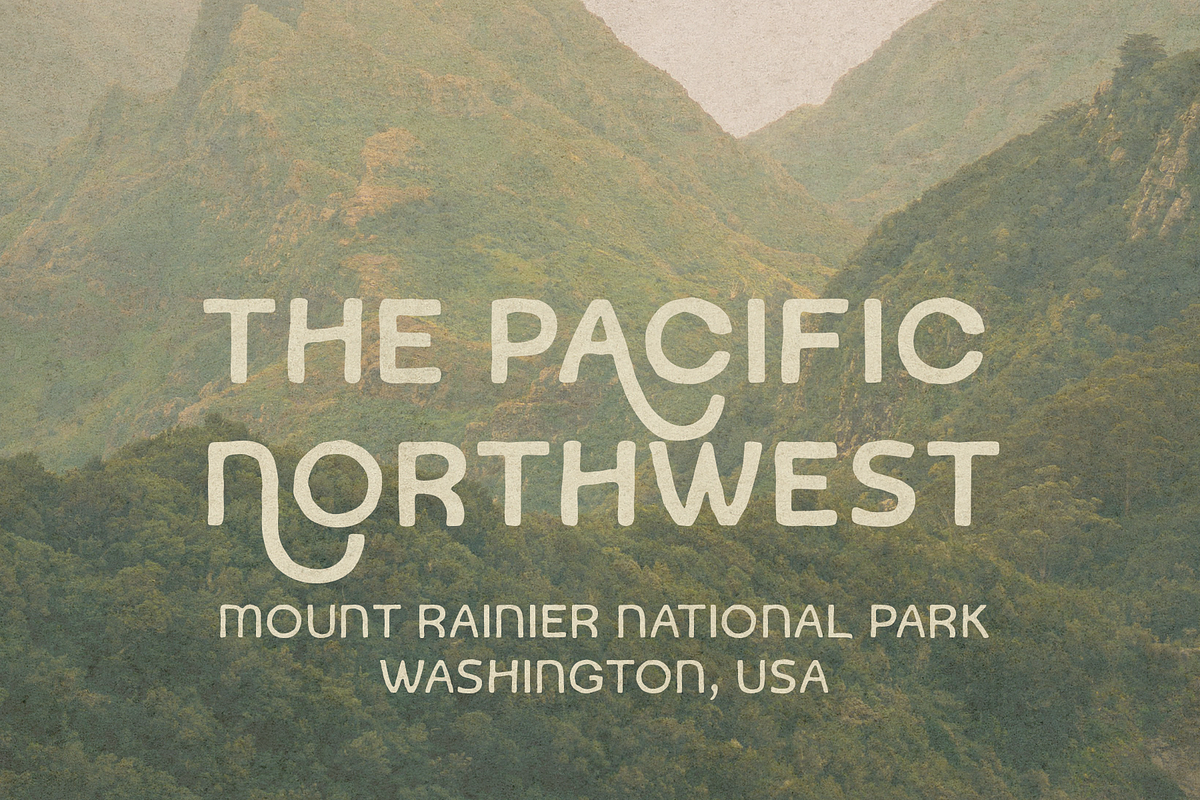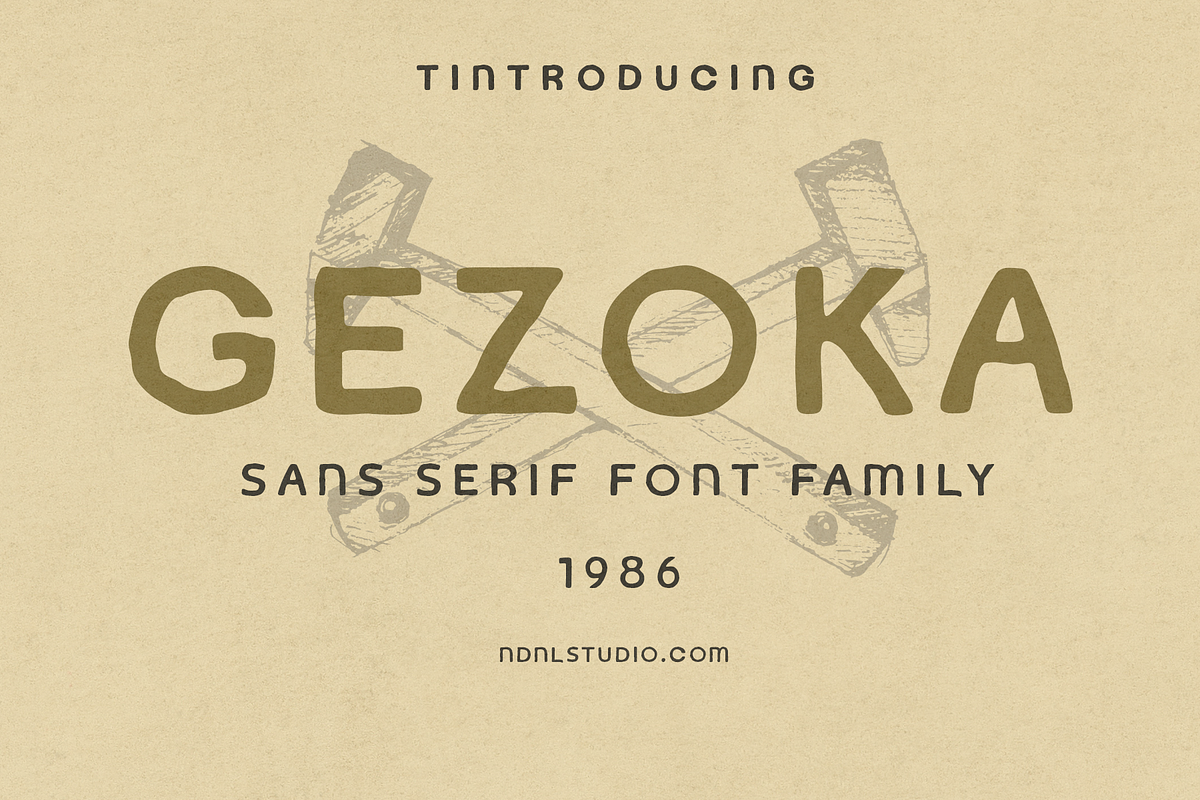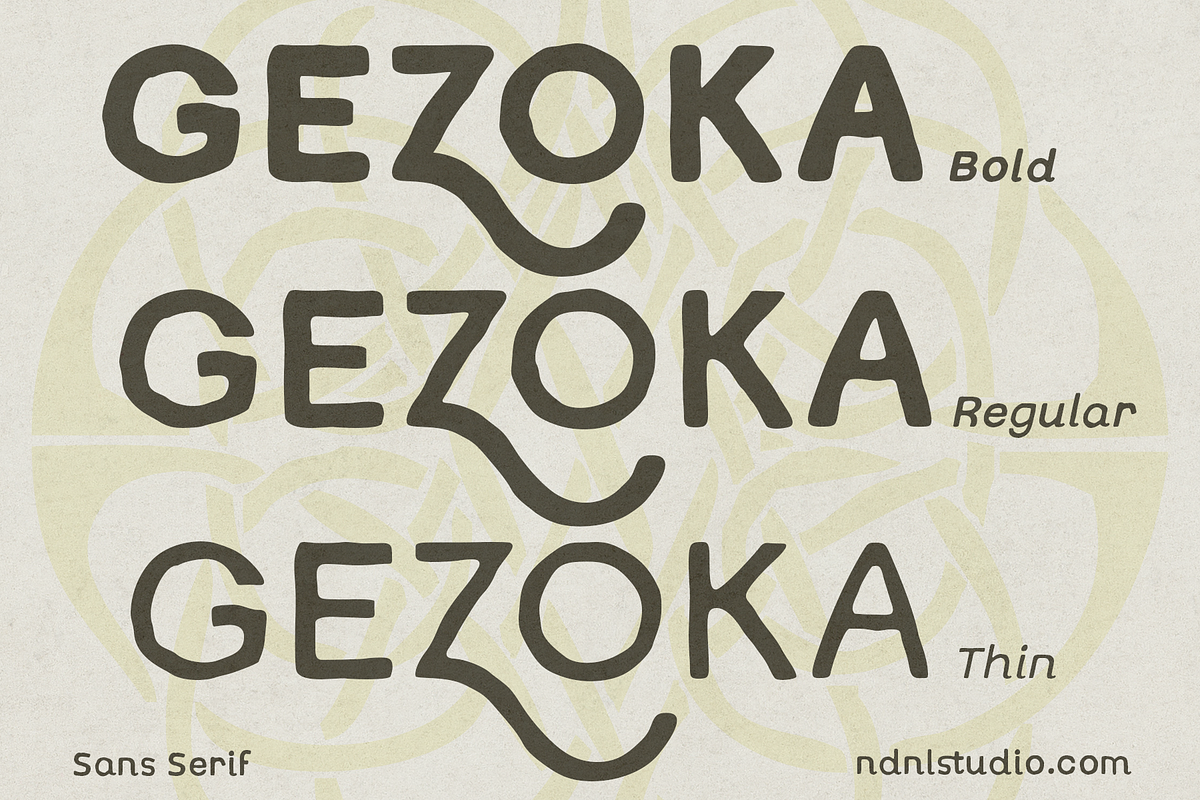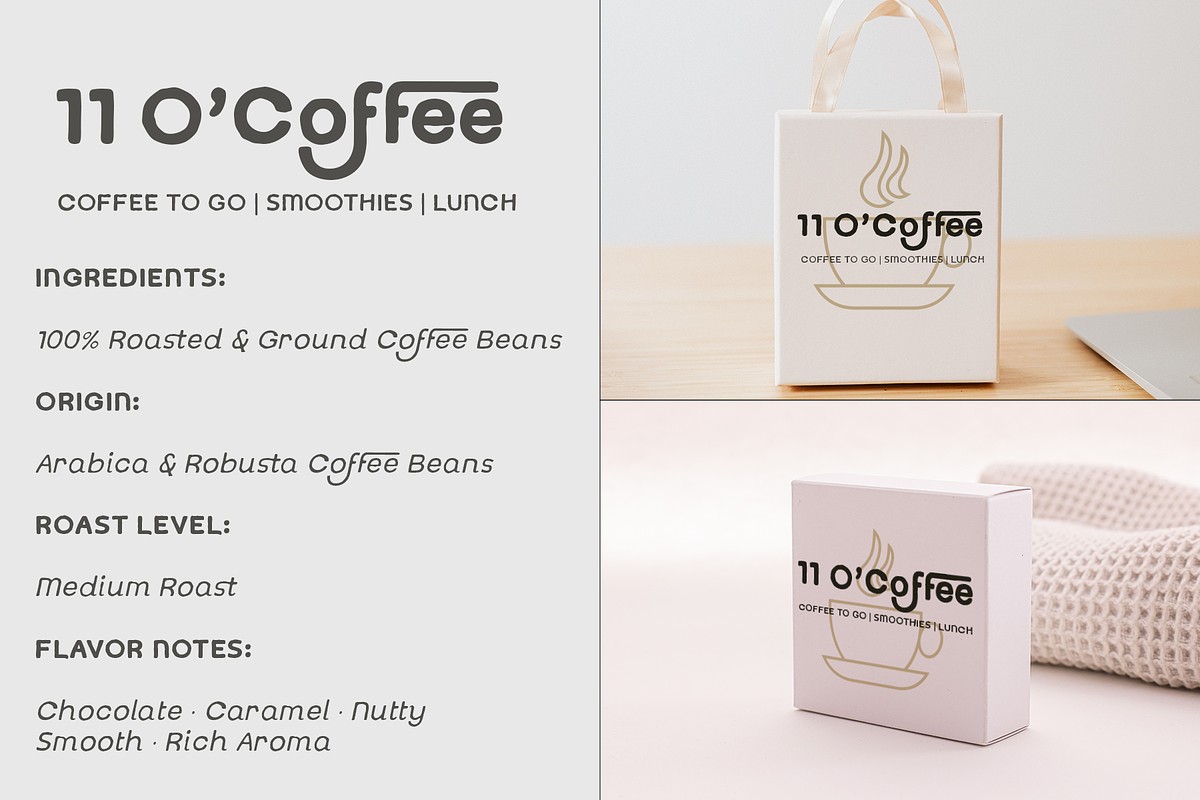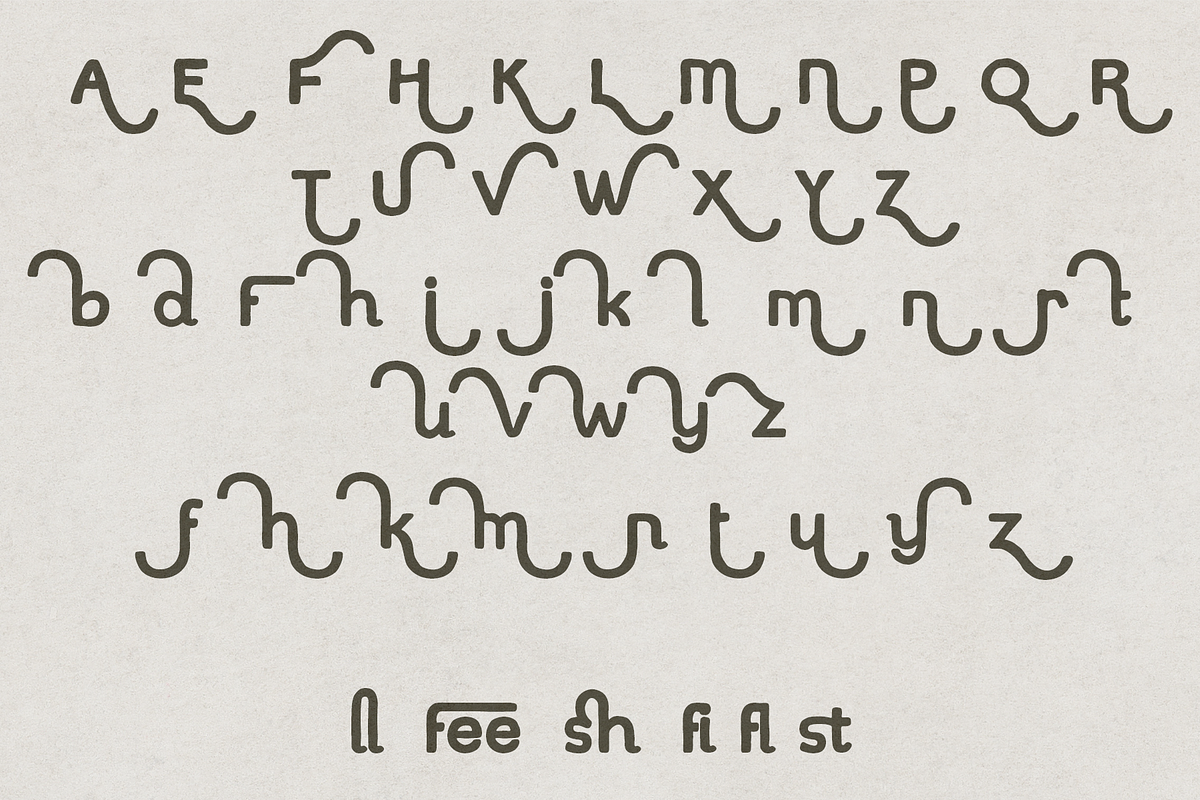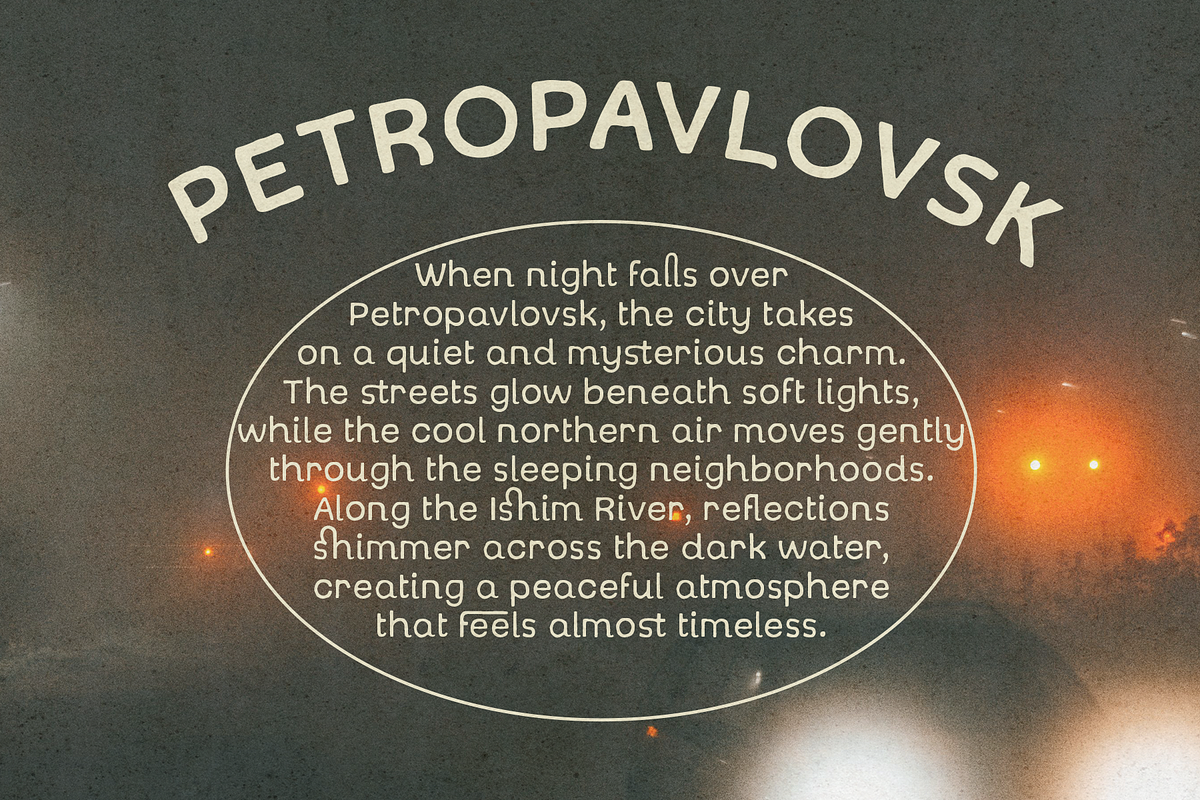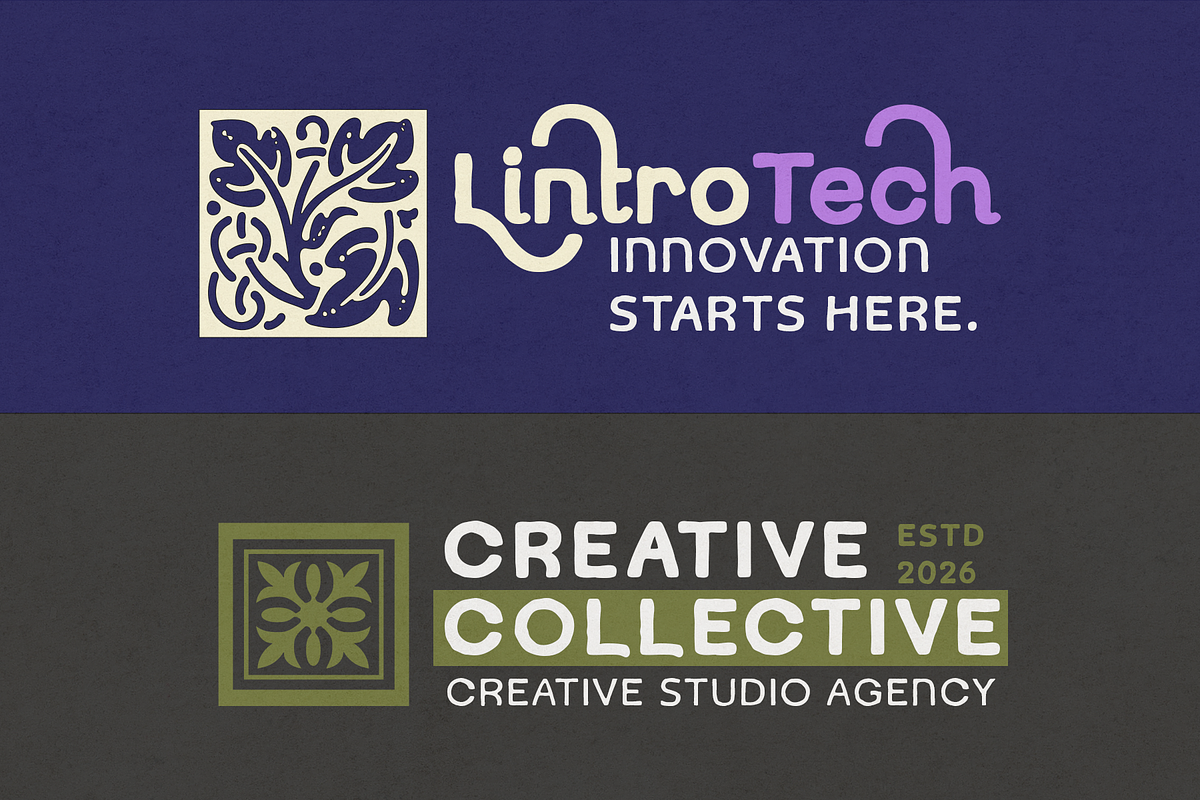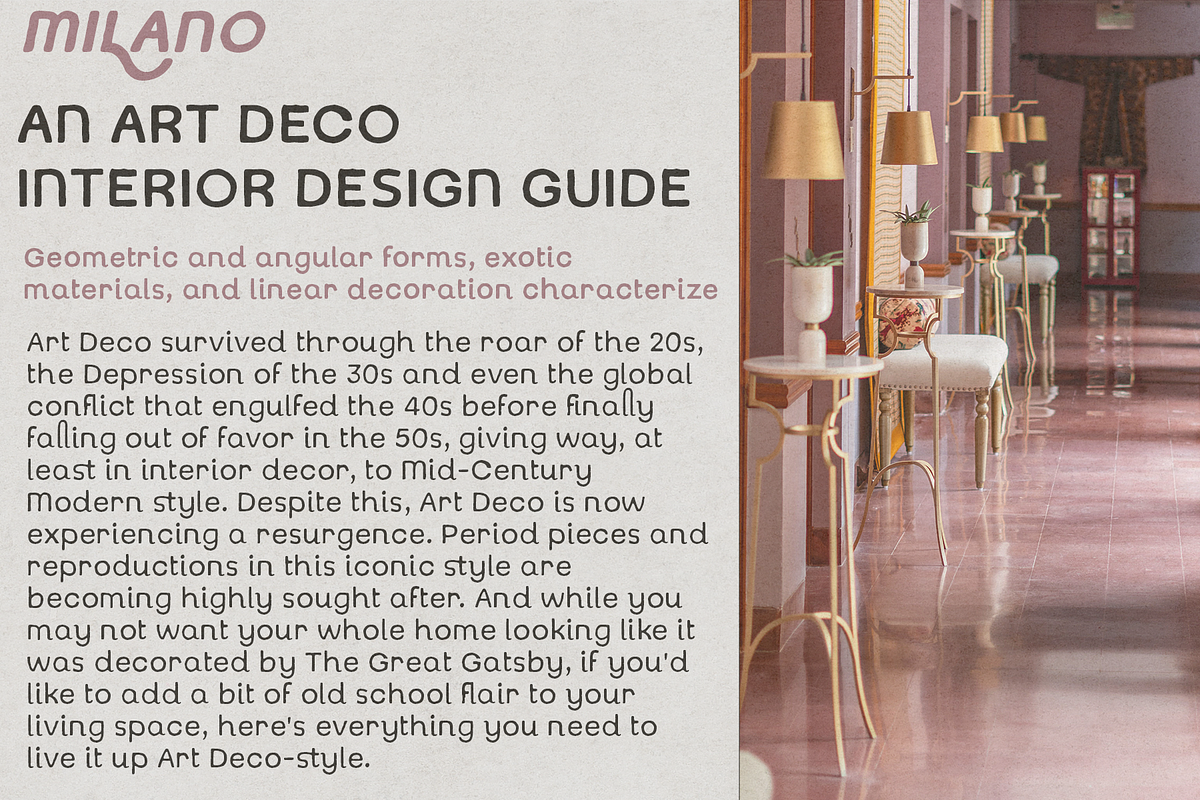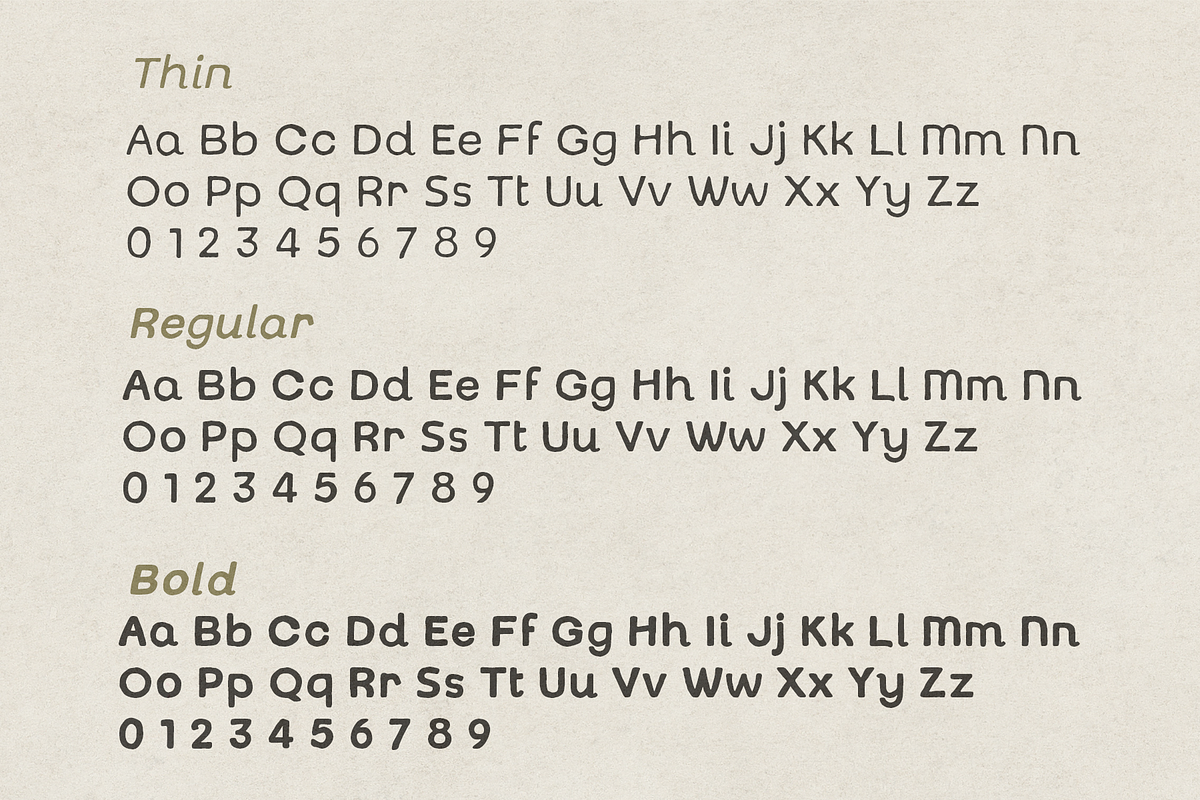
Gezoka – Sans Serif Font Family
Gezoka is a bold and expressive sans serif font with a distinctive hand-drawn character. Its rounded forms, organic curves, and playful details create a strong yet friendly visual personality, while the varied weight options offer flexibility for different design styles.
With Bold, Regular, and Thin styles, Gezoka works beautifully for logos, branding, posters, headlines, packaging, social media graphics, and creative display designs. Its unique letterforms bring a modern, artistic touch while maintaining excellent readability.
– Character set A-Z
– Uppercase & Lowercase
– Numerals & Punctuation
– Accented Characters (West Europe)
– Ligatures
– Extended Character Set